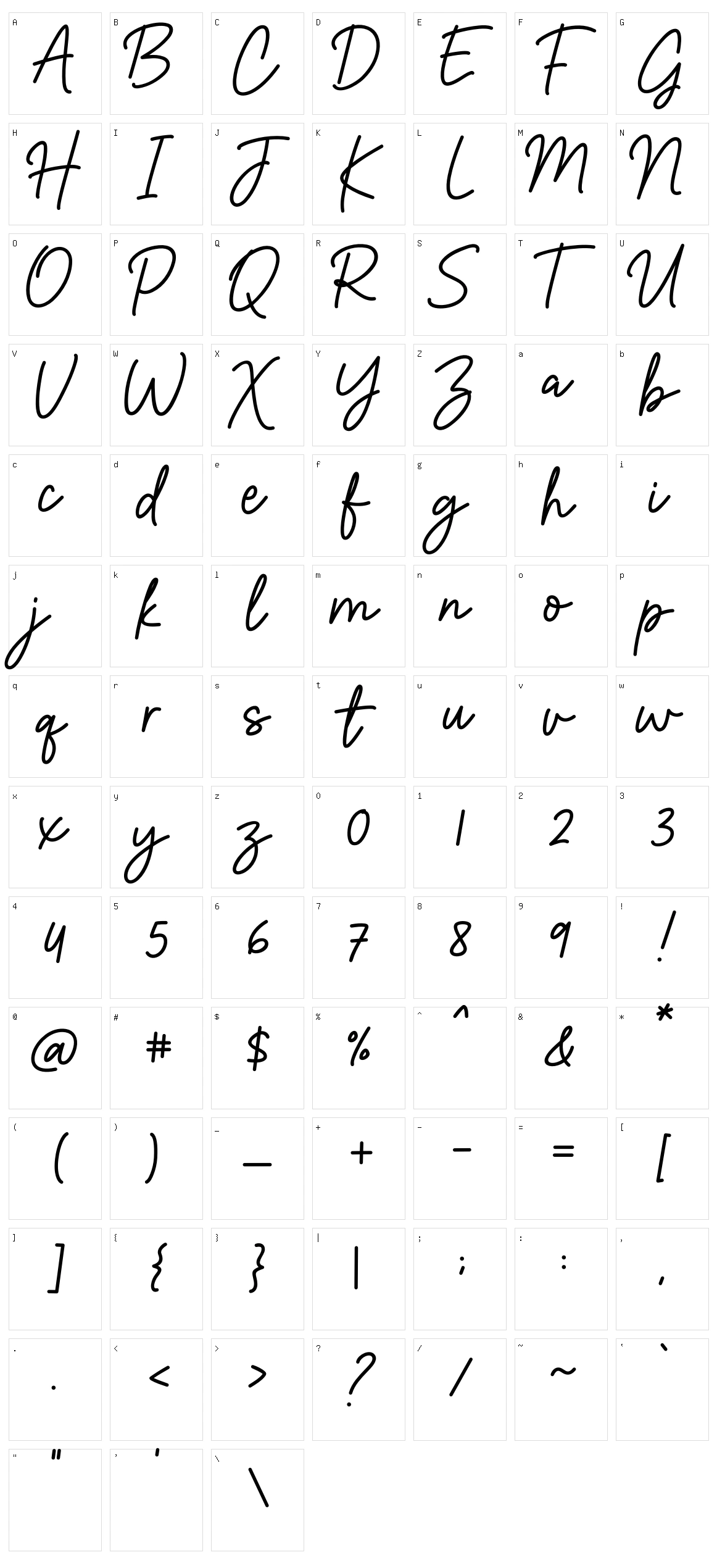
The free font Katherine Thompson is carefully designed by Jimtype Studio, showcasing a thoughtful balance of creativity and usability and falls under the Script font style. When you download the ZIP file, it contains only 174.84 KB of font files, making it lightweight and quick to download. Please review the license details below to understand permitted usage and distribution rights. If license information is not available, we recommend using this font for personal projects only or contacting the author directly for commercial usage permissions.